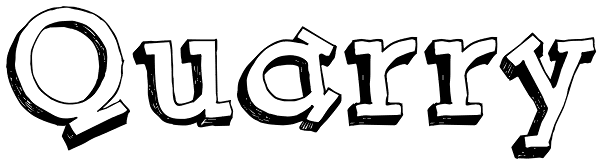
Quarry
Quarry is a beefy slab-serif display font. It is all hand drawn and will give your designs a unique handmade feel. Two complete sets of letter glyphs give a more natural random feel. Contextual alternates will switch out letters automatically in...